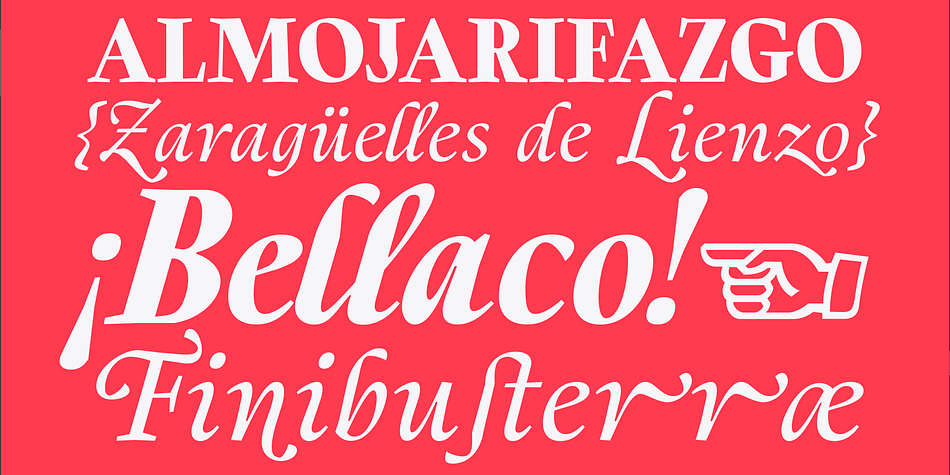
Berganza
Designed by Carlos Campos, Berganza is a serif font family. This typeface has four styles and was published by Cuchi qué Tipo.
«Berganza» is a typeface designed as a tribute to the spanish century called «Siglo de Oro». Embellished with several ornaments and swashes, it quickly reminds an age in which castilian arts & letters were flourished, as well as the fantasy knighty fables adventures of heroes, loved ladies and evil villains. Although the «Siglo de Oro» cannot be set in specific dates, it is generally considered to have lasted more than a century; between 1492, the year of the discovery of America and 1681, the year in which the writer Pedro Calderón dela Barca died. Lope de Vega, Francisco de Quevedo, or even William Shakespeare (in England) are also famous figures of this time. Berganza typeface takes its name from the main character of the picaresque novel «The Conversation of the Dogs» (Cervantes, 1613). Berganza is able to speak with the other dog Scipio on a big number of social & philosophical topics.
Talking about technics, Berganza is a modern typeface but with a humanist flavour. Thanks to its various styles and flourishes, it immediately refers to the culteranism aesthetic of that time, whose aim was to elevate the noble over the vulgar. But also, Berganza takes advantage of the contemporary technology, highlighting in his drawing the contrasted forms and certain broken and unusual strokes in order to give it a brave and different style touch. Berganza includes four weights to be used for continuous reading with great visual richness. However, it is more recommended for large sizes, since its unusual and particular details appear when the letter grows. Finally, the hundreds of glyphs and Opentype features that it has incorporated, allow us to change the aesthetics of the type according to our needs.
4 INSTANCES (Regular, Bold, Italic & Bold Italic)
28 LAYOUT FEATURES (stylistic sets, ligatures, historical ligatures, swashes, contextual alternates, numerals, etc)
DESIGNED BY CARLOS CAMPOS IN 2021